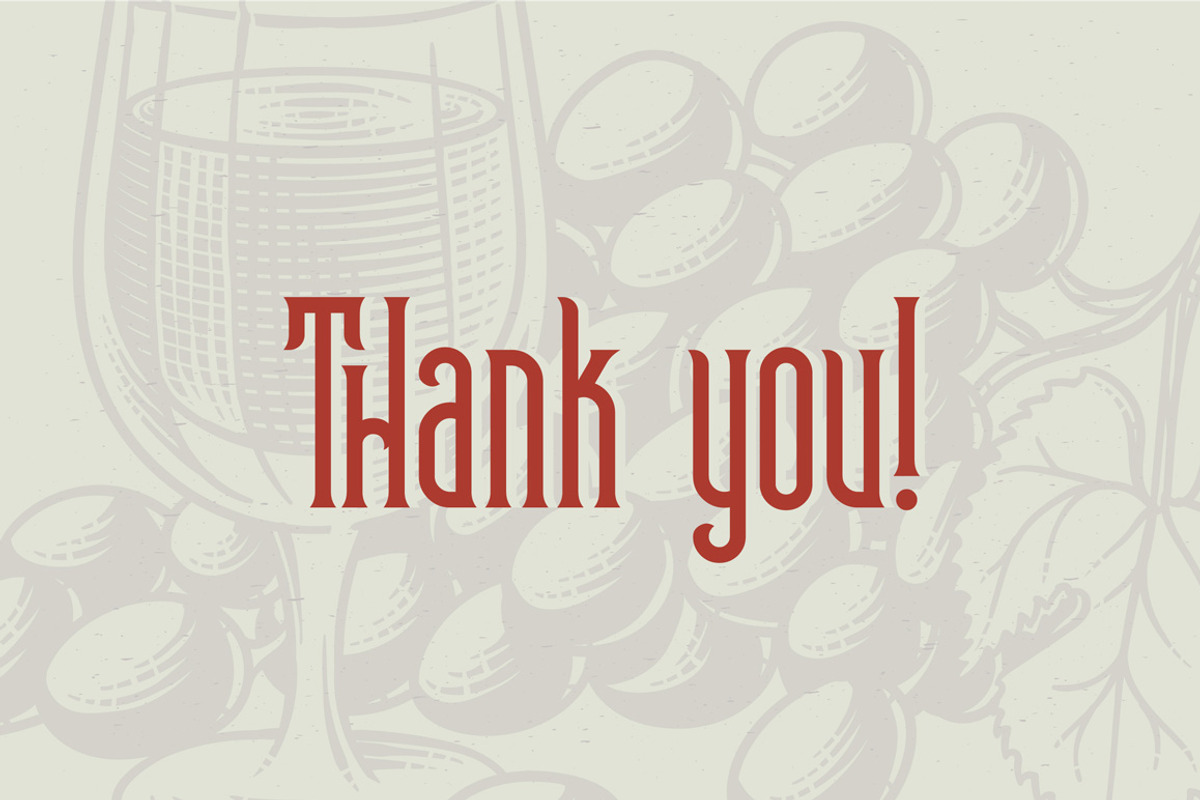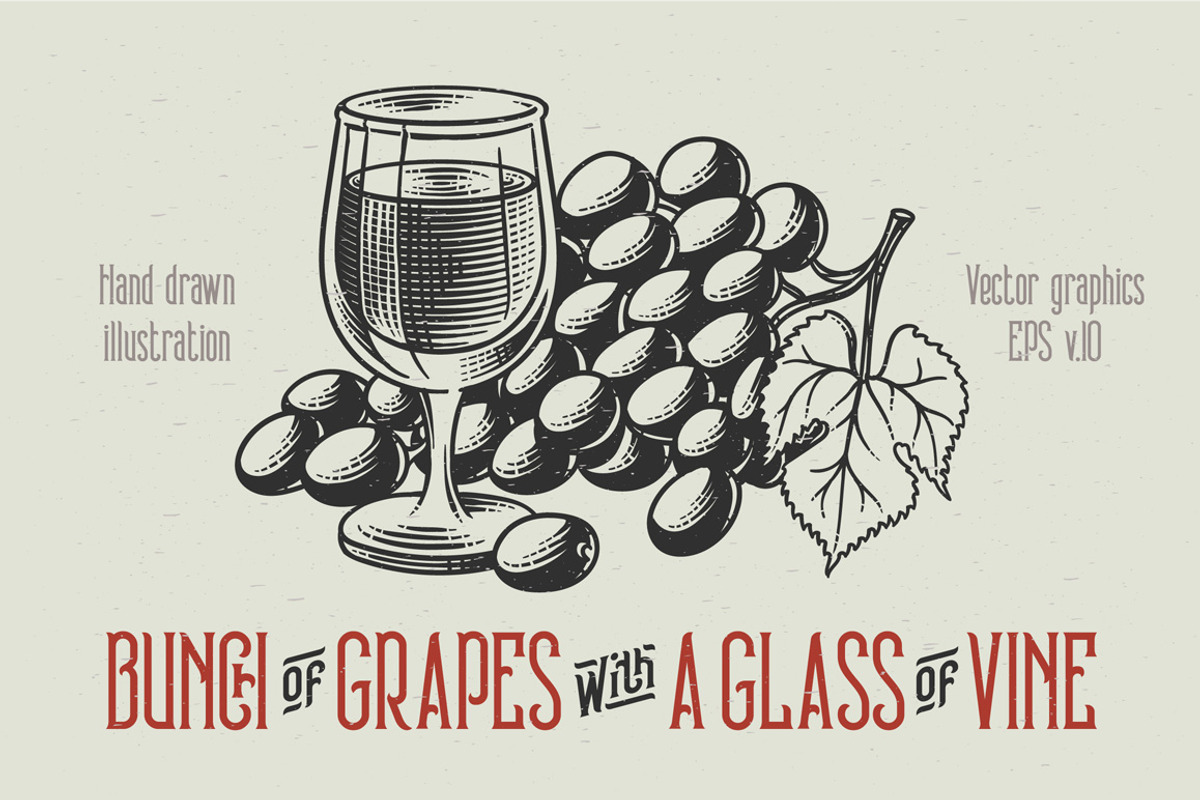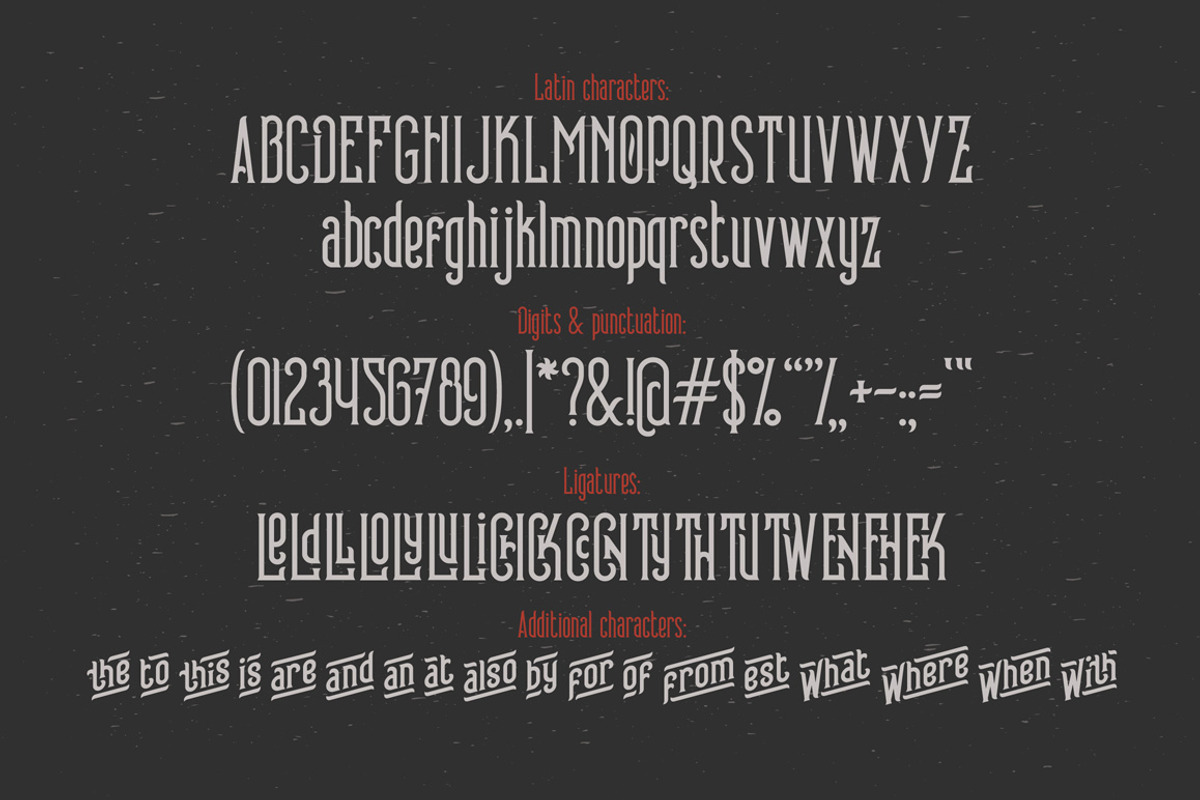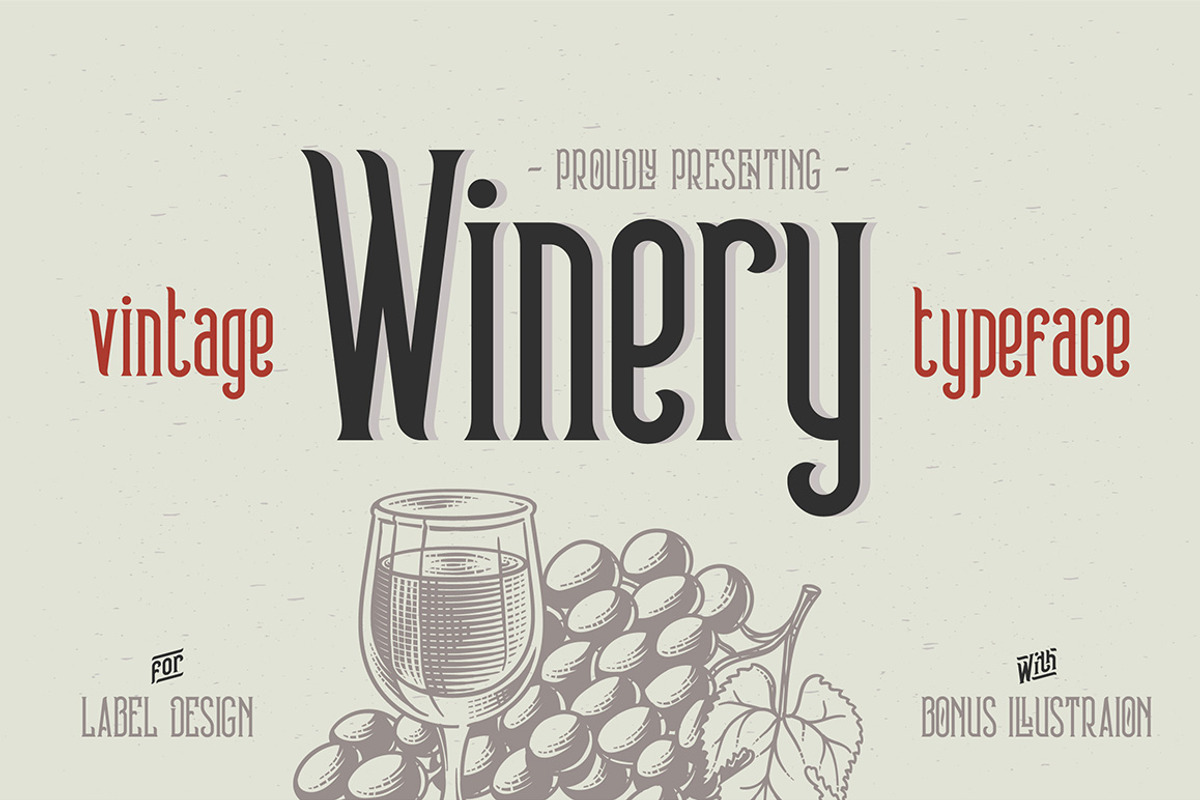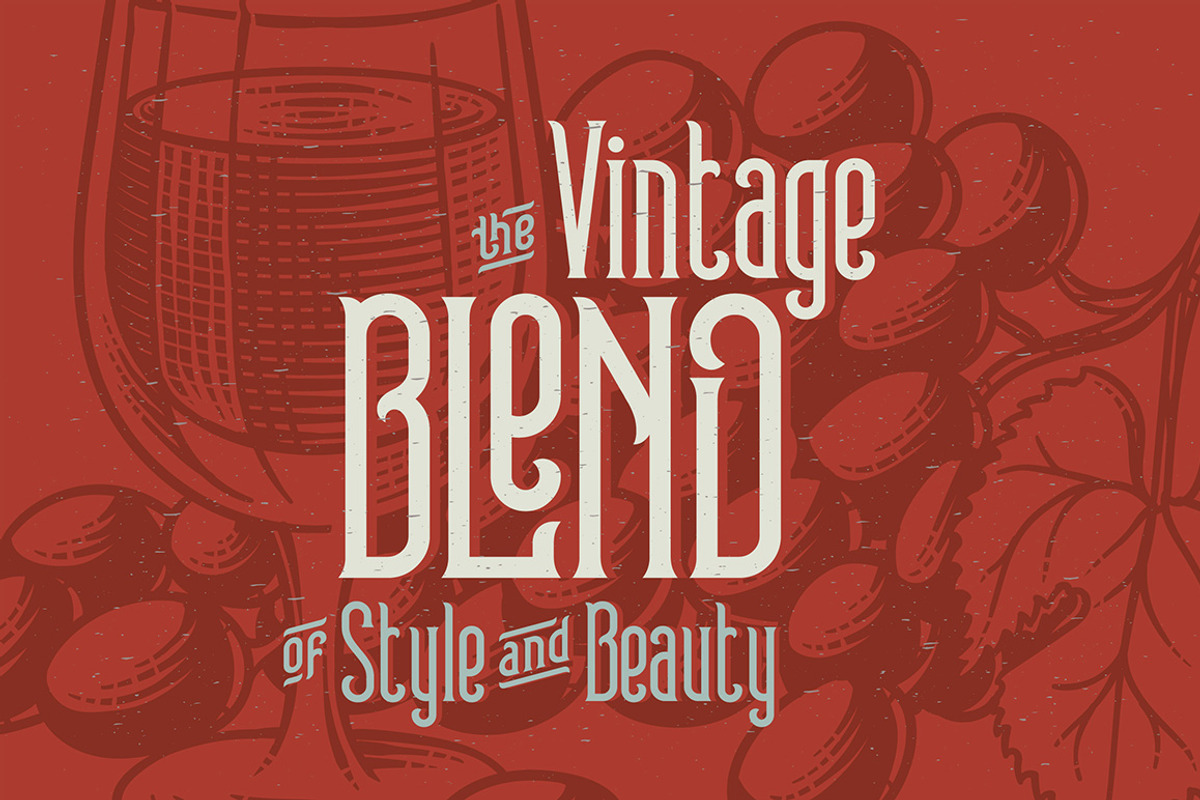
Winery typeface + bonus
Winery typeface + bonus by Gleb Guralnyk is a font selected for branding, posters, packaging, typography.
- Font contains only latin characters.
- Tall condenced font, that is very compact, but has its own style – perfect for label design, or whatever you like :) What's inside: OTF, TTF
- Winery Regular
Winery typeface + bonus by Gleb Guralnyk fits naturally into Branding, posters, packaging, typography.